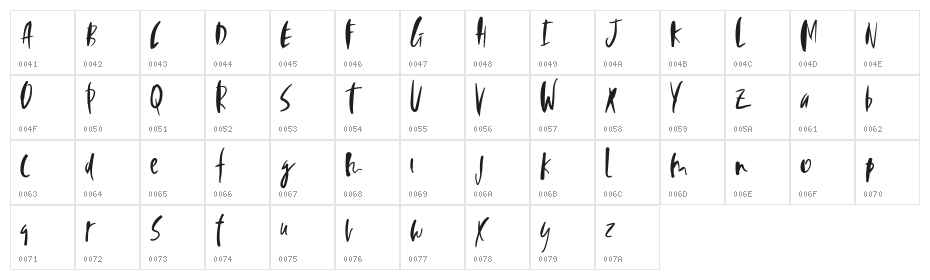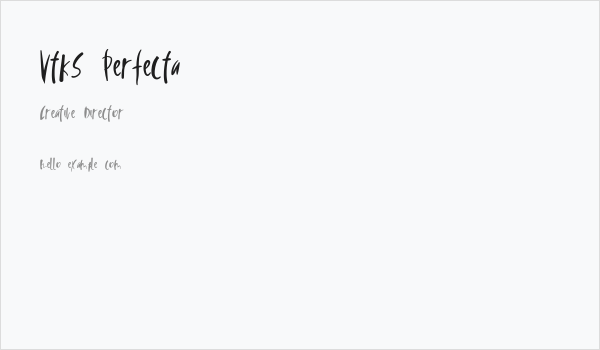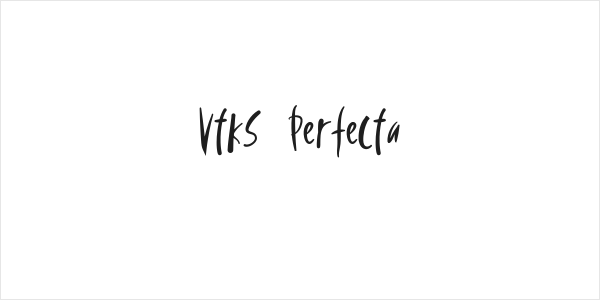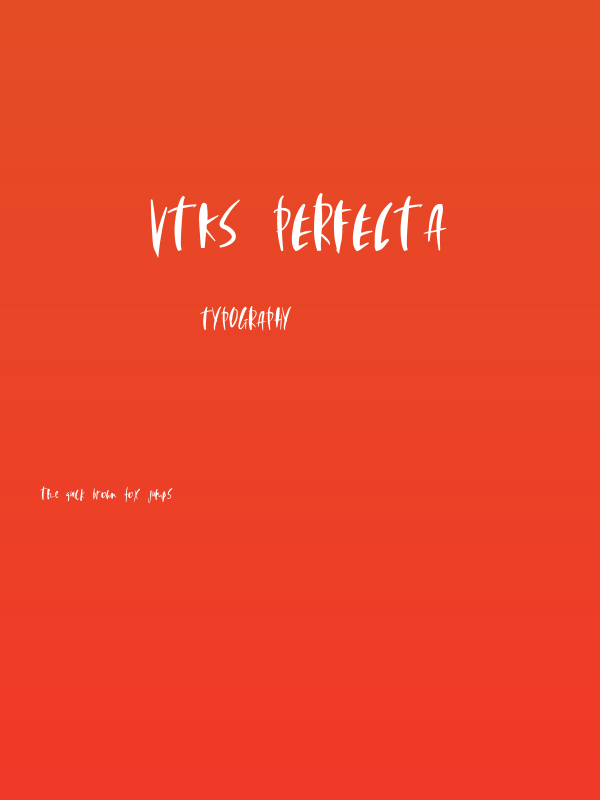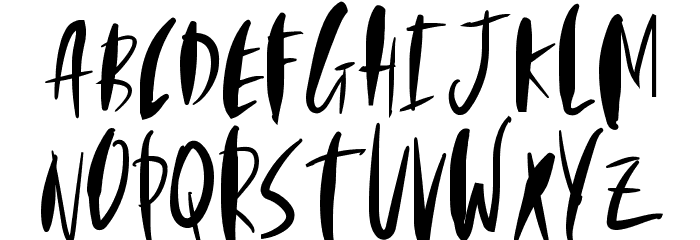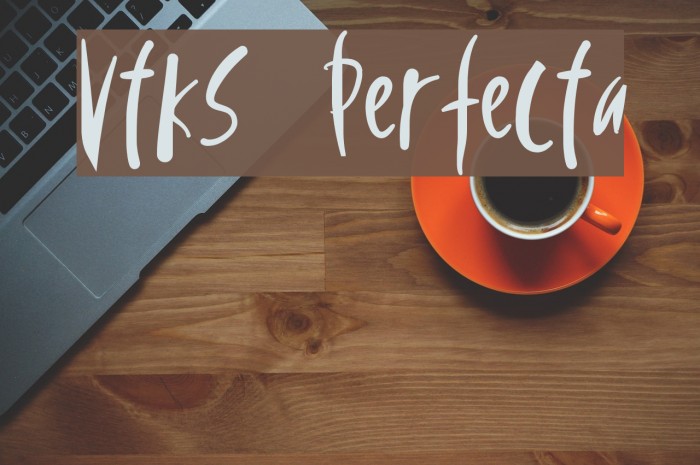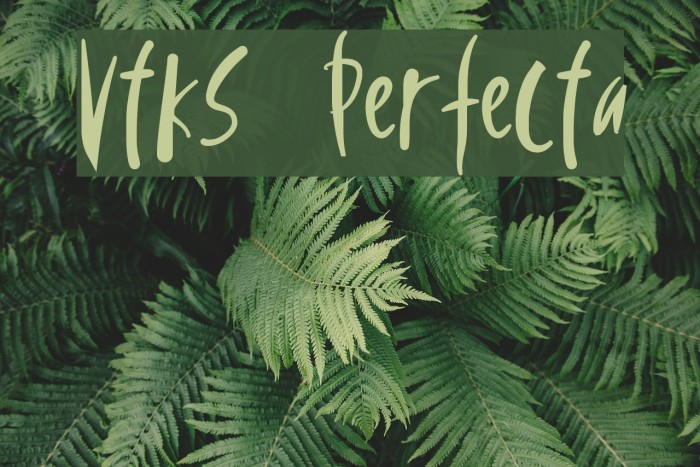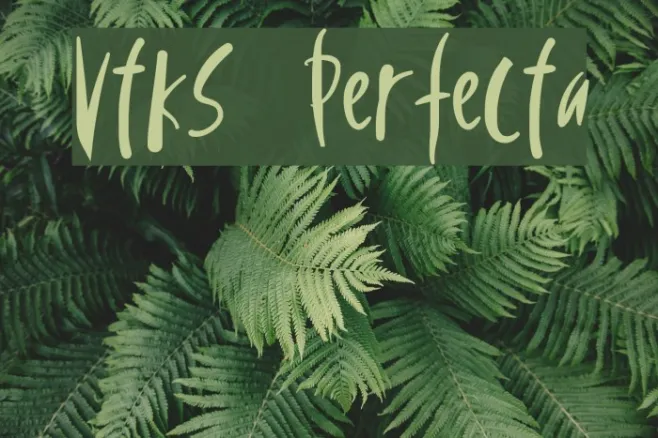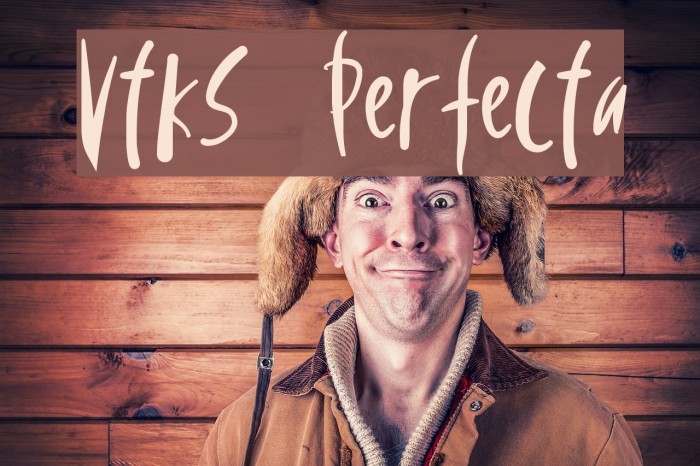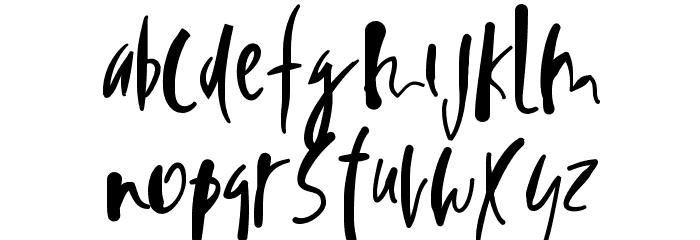
Vtks Perfecta Font
Vtks Perfecta Description
This font features a bold, expressive style with a handwritten appearance. The letters are characterized by their irregular, dynamic strokes, giving them a lively and energetic feel. The uppercase and lowercase letters maintain a consistent flow, with some letters extending slightly beyond the baseline, adding to the casual and informal aesthetic. The numbers and special characters follow the same design principles, ensuring a cohesive look across all glyphs. This font's unique style makes it suitable for projects that require a personal touch or a creative flair.